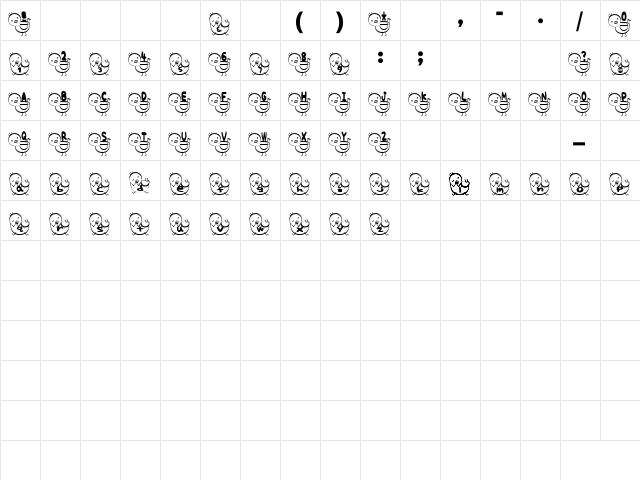
T-piyo Font Regular
Design Context for T-piyo Font Typeface
T-piyo Font is a composed and adaptable typeface that performs quietly and consistently across a wide range of design contexts.